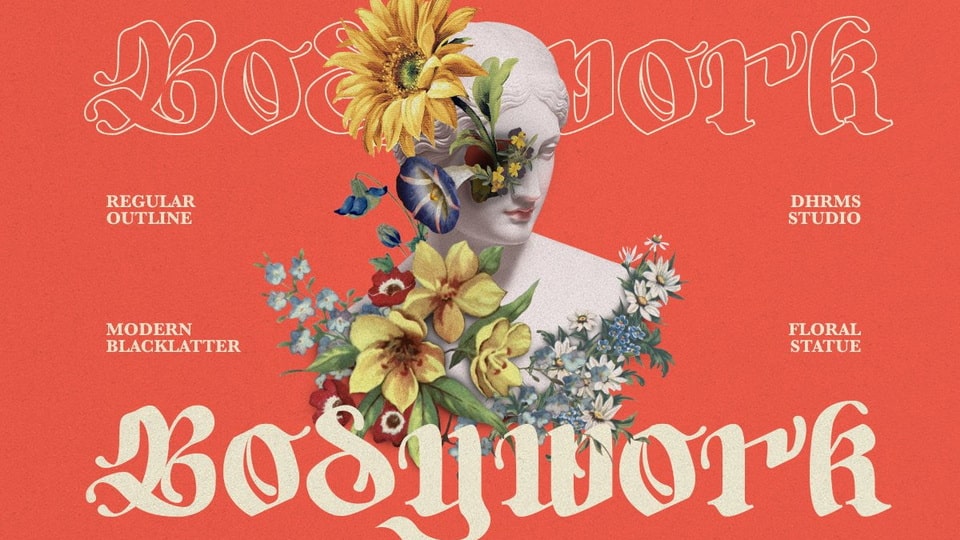
Feb 1, 2025DisplayBodywork Font Bodywork is a blackletter font with a groovy modern style and flower petal inspired curves. This font is perfect for branding, logo design, cover design, books, magazines, apparel designs, headlines and more. Font DetailsDesigned by: Dharmas StudioWebsiteLicense: Free for personal use Download Bodywork FontFile size: 50.69 KBCreated: February 16, 2025Updated: February 16, 2025 Download Explore similar fonts Vexthorn Font Ruination Font Kroven Font Morvakh Font Haveron Font Hollowick Font # Blackletter# Decorative# Gothic# Outlined More fonts by Dharmas StudioDh Caloins FontVarious FontEtnier FontSifty Black FontBrotherhood FontTranscity FontBargie FontDh Alista Aghni Font